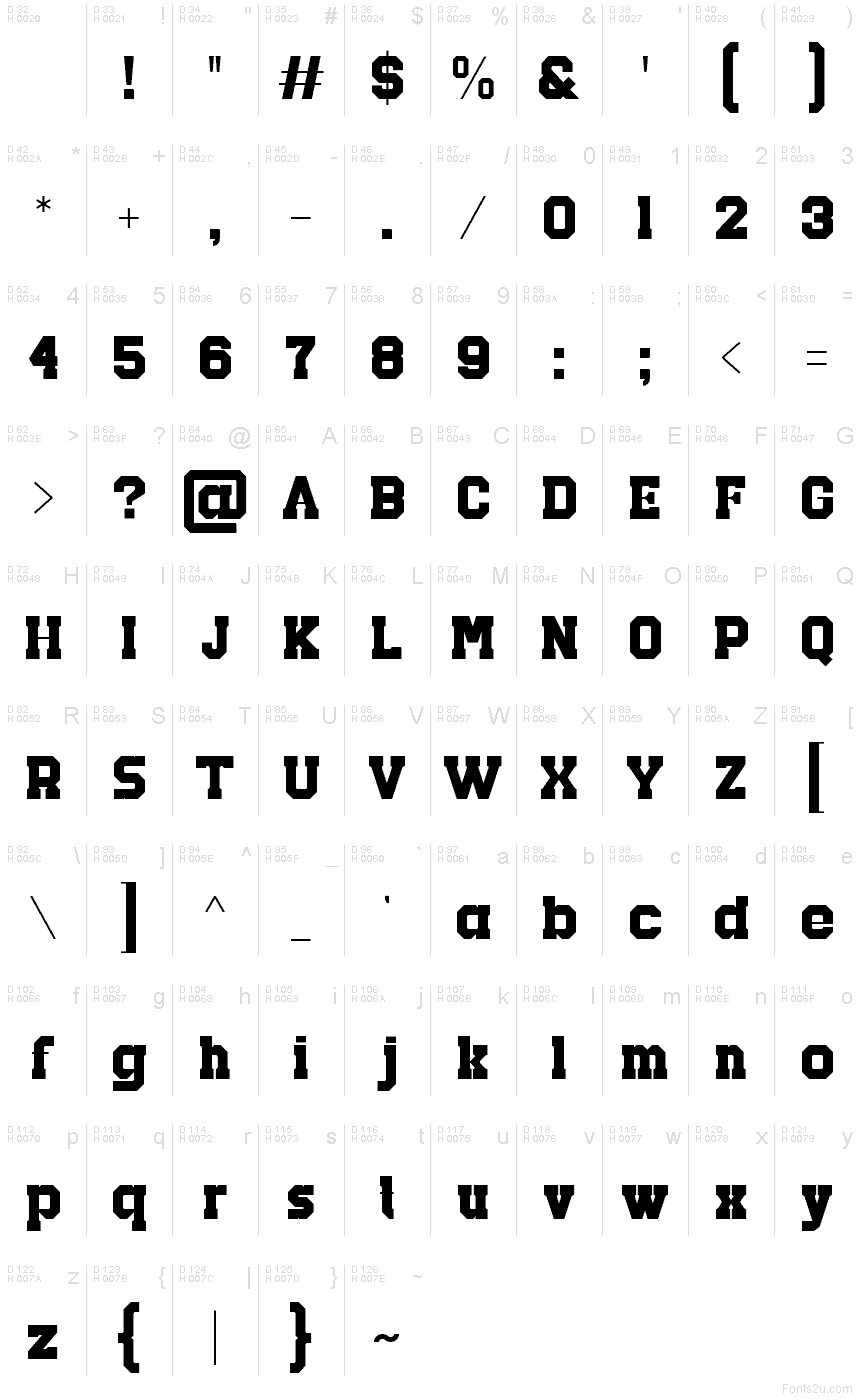
Zaigen
Zaigen font by Ermedia Studio is a free retro display font. Built around bold, faceted shapes and crisp chamfered corners, it looks like it’s been cut from a solid block—clean edges, squared counters, and a confident, mechanical rhythm. The letters lock together with tight spacing, creating a sturdy, one-voice headline that reads fast and hits hard.
Using Zaigen, you get instant impact for gaming logos, sci‑fi posters, sports branding, event flyers, tech packaging, and bold signage. This free font shines at large sizes where its angular cuts catch the eye. For balance, pair it with a simple grotesk or a narrow sans in smaller text to keep the message sharp and readable.